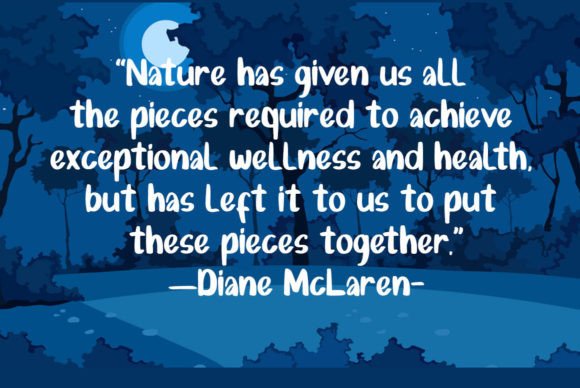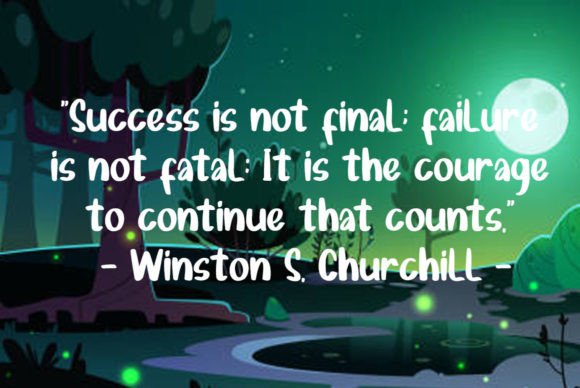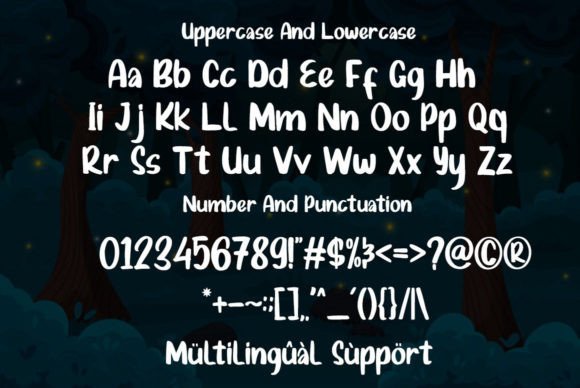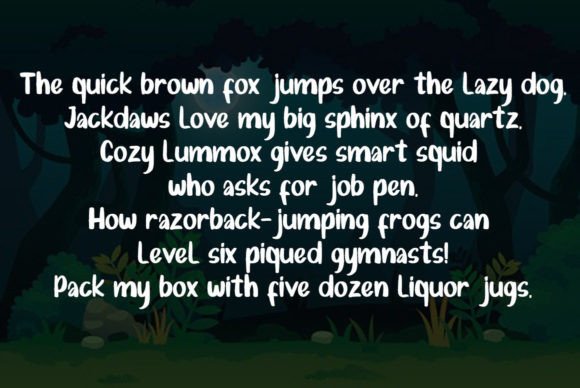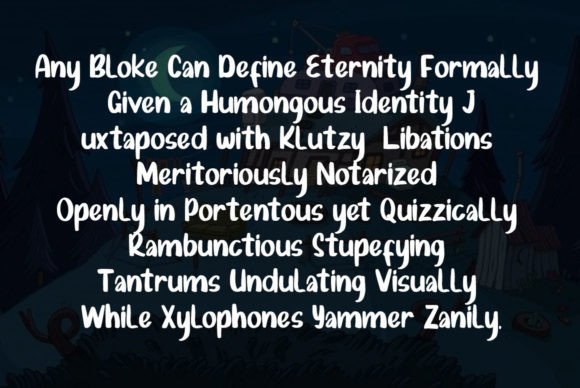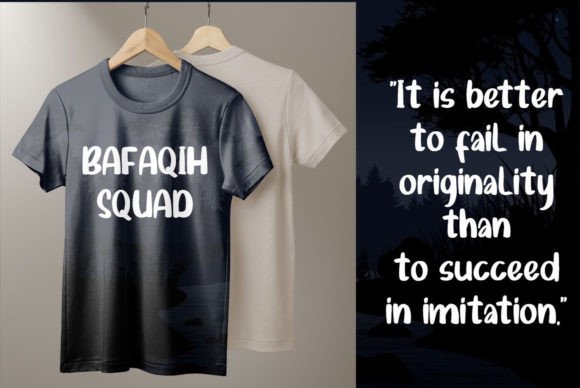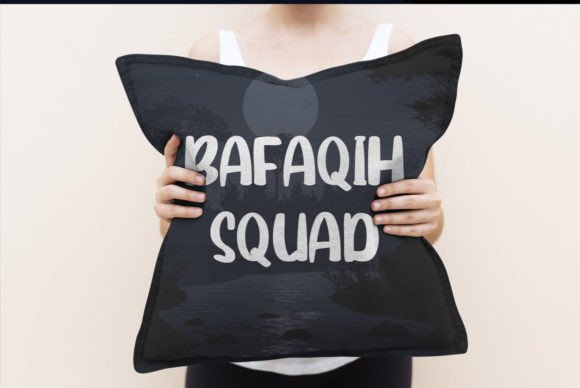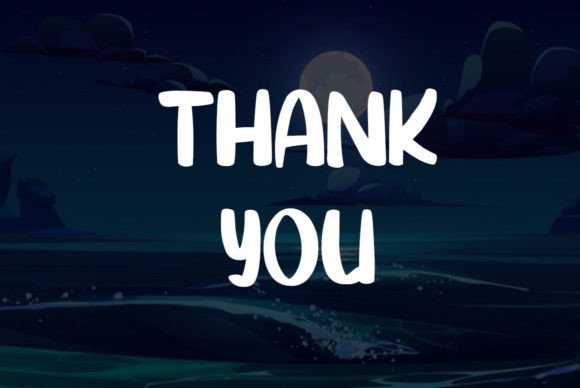
Bafaqih Font
About Bafaqih Font
Bafaqih stands out as a bold script font, perfectly tailored for brand and logo designs. Its bold and distinctive nature makes it well-suited for various applications, particularly excelling in invitations, business cards, vintage logos, and more. With Bafaqih, you can achieve a classy, elegant, and, of course, a unique logo that sets your brand apart.
The bold script style of Bafaqih adds a sense of confidence and prominence, making it an ideal choice for brand designs. Whether you’re creating a modern and sleek logo or aiming for a vintage-inspired brand identity, Bafaqih brings a versatility that allows it to adapt to diverse design preferences.
In the realm of invitations, Bafaqih’s bold script lends a touch of sophistication. It can be utilized for creating eye-catching and elegant invitation cards, setting the tone for events with a strong visual impact.
For business cards, Bafaqih’s bold and unique lettering ensures that your brand stands out. The font’s script style adds a touch of elegance, making your business cards not just informative but also a representation of your brand’s personality.
In vintage logos, Bafaqih’s bold script becomes a powerful tool. Its unique and classic letterforms contribute to a timeless aesthetic, making it an excellent choice for brands looking to evoke a sense of nostalgia and authenticity.
The promise of a classy and elegant logo with Bafaqih ensures that your brand identity is not just visually striking but also communicates a refined and sophisticated image to your audience.
In summary, Bafaqih is a bold script font that brings a sense of class and uniqueness to your brand and logo designs. Its versatility shines in invitations, business cards, vintage logos, and various design applications where a bold and elegant script is desired. With Bafaqih, you can craft a logo that not only stands out but also exudes a timeless and sophisticated charm.